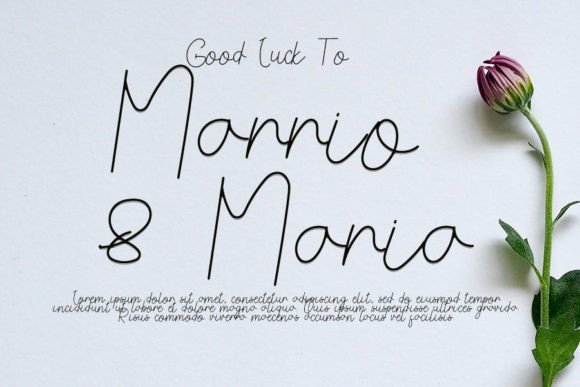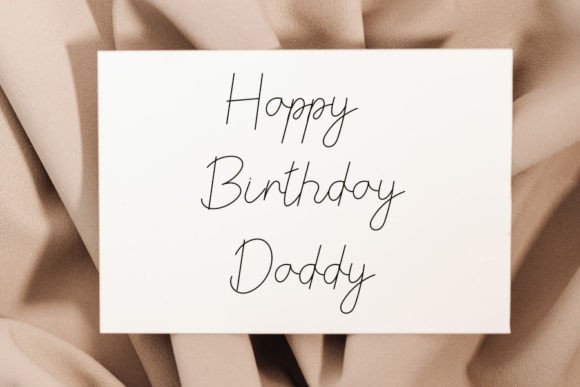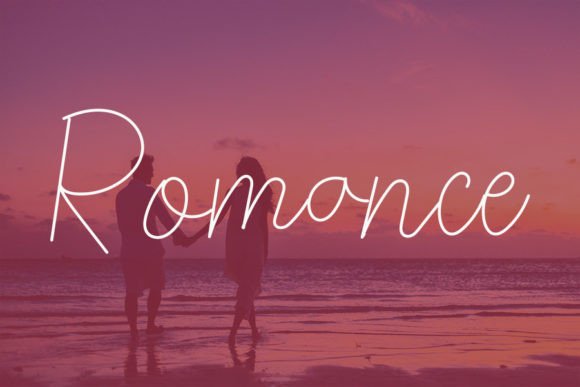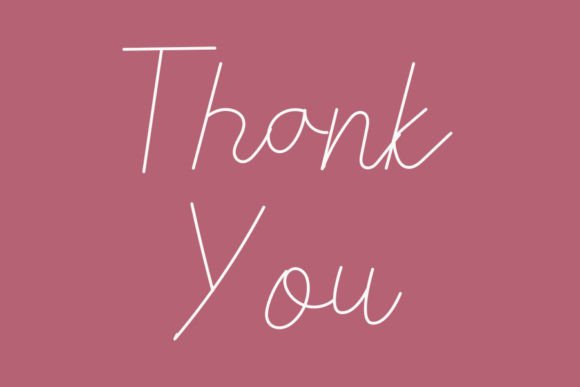
Holaiday Font
Holaiday Font Download – Elegant Neat Handwritten Script
The Holaiday Font download is a neat handwritten script that combines elegance with timeless beauty. With its smooth strokes and graceful balance, this font is perfect for both casual and professional projects. Because it blends style with versatility, it adapts well to stationery, posters, and creative branding.
Elegant and Distinct Handwritten Style
Holaiday features balanced lines and a natural flow that make text look refined. As a result, it adds sophistication without losing a friendly handwritten charm. In addition, its timeless style ensures designs remain relevant.
From wedding invitations to thank-you notes, this font gives messages a personal and stylish tone. It makes every word feel heartfelt and memorable. Therefore, it is an excellent option for stationery projects.
Holaiday Font Download for Posters and Logos
The Holaiday Font download also works well for posters, logos, and branding campaigns. Its elegant strokes make designs stand out while keeping them readable. This makes it an excellent choice for professional and creative branding.
Versatility Across Creative Projects
Whether you are designing digital artwork or handmade crafts, this font adapts seamlessly. In addition, it works well across different media, giving designers flexibility in their creative work.
Readability and Professional Balance
Unlike some decorative fonts that sacrifice clarity, Holaiday maintains a perfect balance between legibility and elegance. As a result, it is suitable for both large titles and smaller design elements.
Why Add This Script Typeface to Your Collection?
The Holaiday Font download is elegant, versatile, and easy to use. In other words, it fits greeting cards, posters, logos, branding, and DIY designs alike. Finally, it is a handwritten script that brings charm, timeless appeal, and creativity to every project.